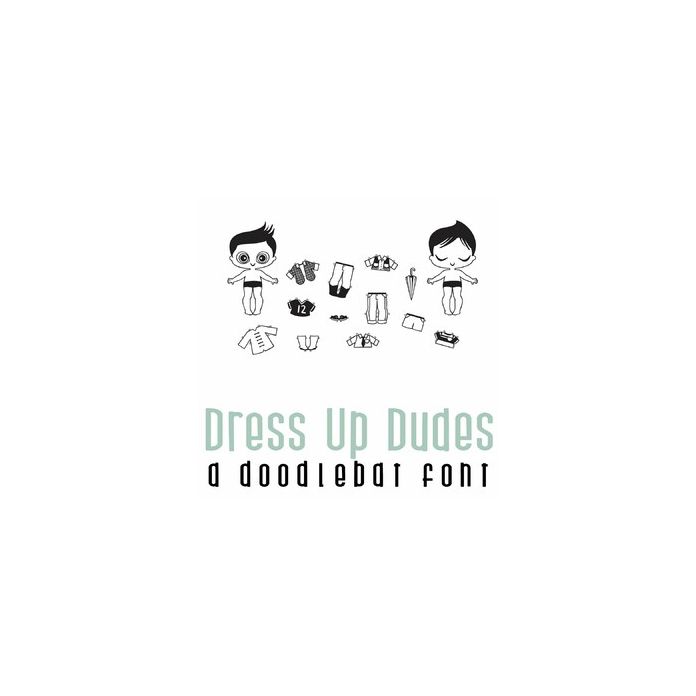
Dress Up Dudes Doodlebat Font
This adorable doodlebat font features 28 images of everything you need to make your own dress up dudes! Dress up dudes has images A-Z plus 0-1 glyphs.